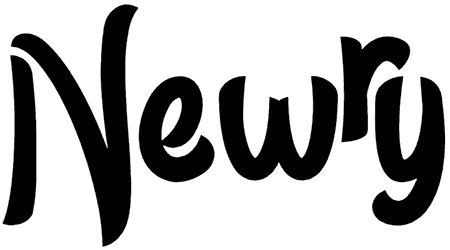
Newry Font
A good script font, such as Newry, can easily provoke a psychological reaction in the audience’s minds and easily convince them to follow all of your artwork, including movie posters, logos, social media posts, book covers, or stickers.